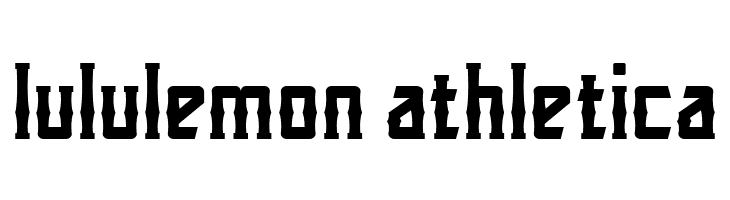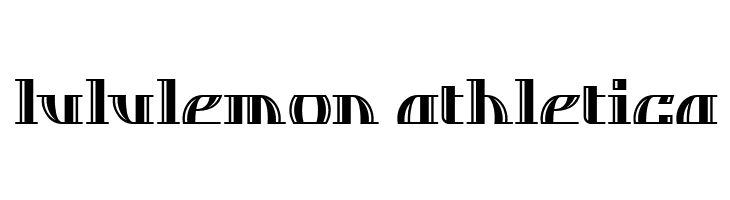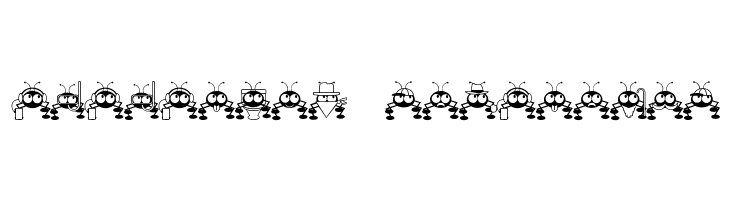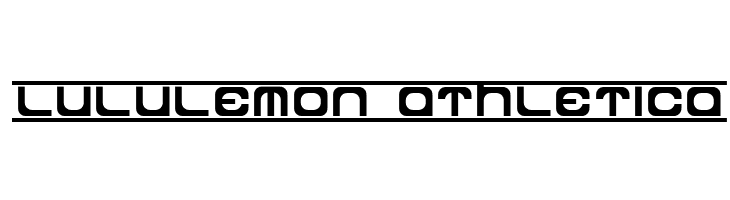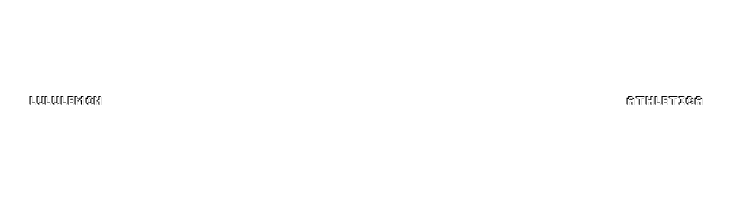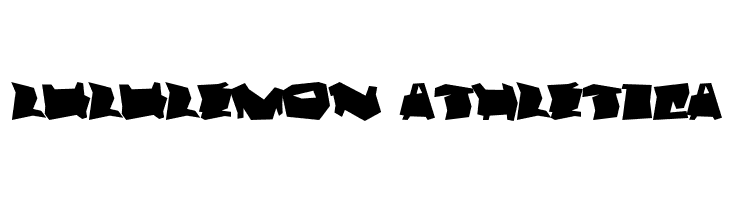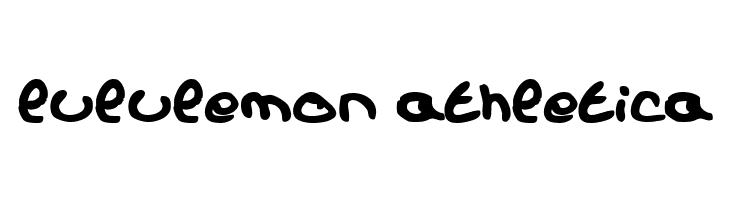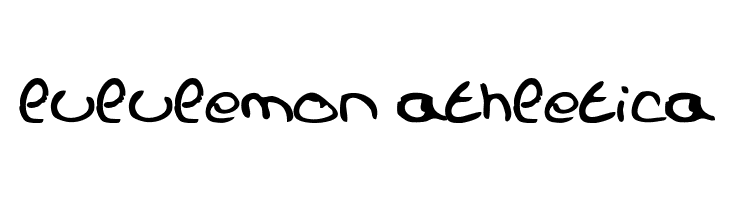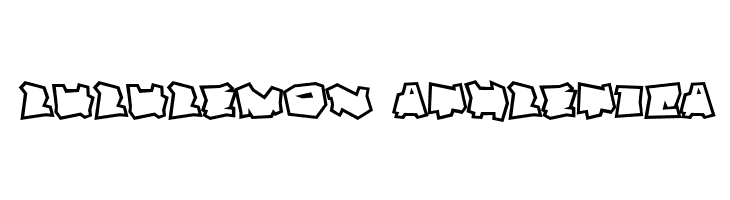
• Doergon Shift
A bold, three-dimensional font with a vintage, geometric style.
• DoergonBackshift
A bold, shadowed font with a vintage, impactful style.
• Dogger Free
A dynamic, brush-style font with bold, expressive strokes.
• Doglas FREE
A bold and elegant script font with flowing cursive letters.
• DogsDogs
A decorative dingbat font with assorted dog illustrations.
• DogsFewCats
A decorative font made up of assorted dog and cat illustrations in various styles.
• Dohong Kaliba Free Version
• DolbyFraxCaps
A decorative and intricate font with Gothic-inspired embellishments.
• DomesticAnimals
Cartoon animal dingbat font with playful illustrations.
• Domillion Brush Free
A dynamic brush script font with fluid, expressive strokes.
• Don Giovonni
A distressed, grunge-style font with a bold, textured appearance.
• Don Giovonni Makin Enemies
A distressed, grunge-style font with a rough, textured appearance.
• Don Moise St
A modern, geometric font with a monospaced appearance and consistent stroke width.
• Don't Bug Me JL
A whimsical decorative font with cartoon bug characters.
• Done Perfectly FREE
A lively and expressive script font with fluid, connected letterforms.
• DongbutsBeings
A playful and whimsical font with anthropomorphic figures and bold numbers.
• DongbutsBeings-Oblique
A whimsical, animated font with characters featuring legs and playful designs.
• Donner
A sketch-like, hand-drawn font with irregular lines and dynamic strokes.
• Donree's Claws
An edgy, claw-inspired font with sharp, dramatic detailing.
• Doodle Dudes of Doom